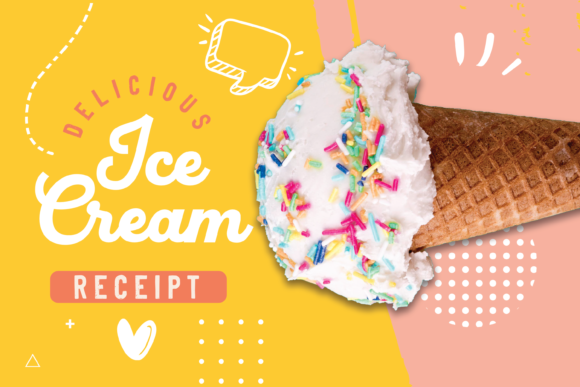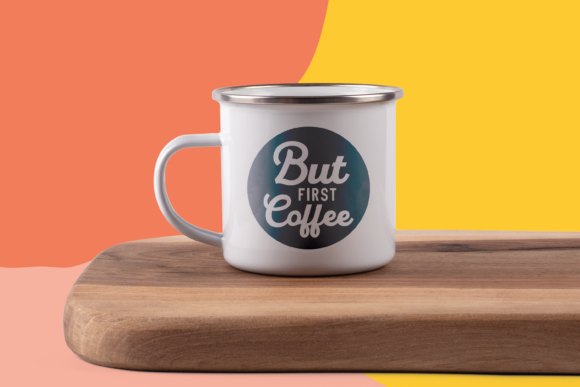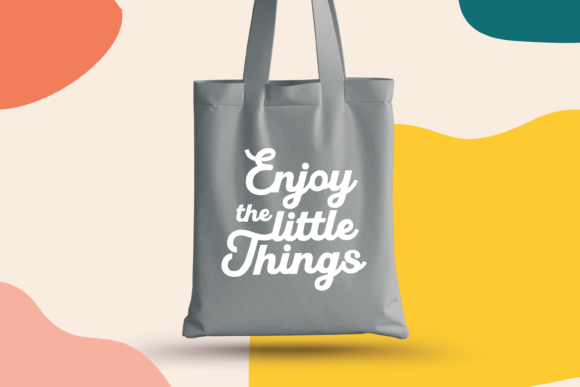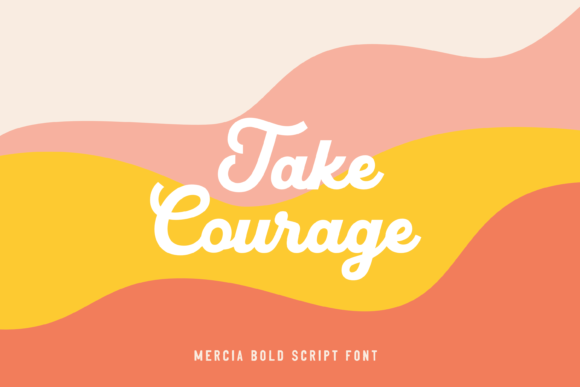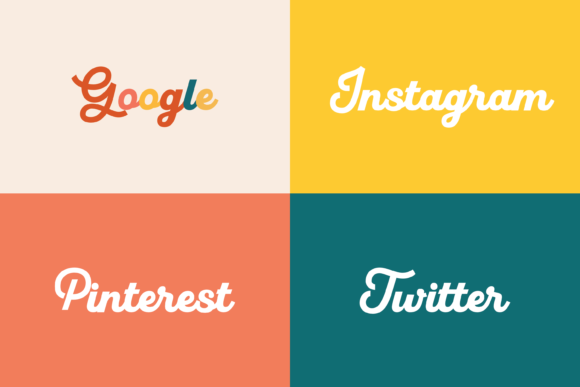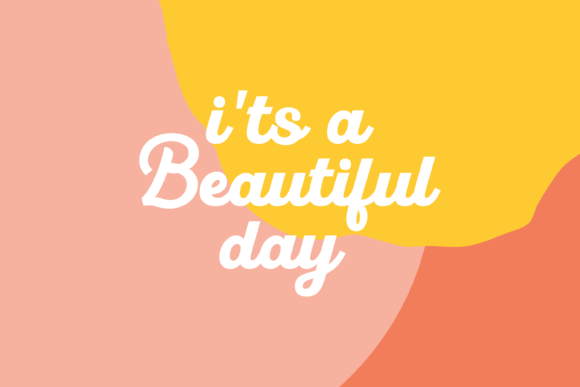
Introduction to Mercia Font
Do you remember the moment when you stumbled upon the perfect font for your creative project? For many designers, that moment is what makes all the difference between a good design and a great one. The Mercia Font is one of those rare gems that can elevate your work to the next level.
This vintage styled, paint brushed script font is not just a pretty face; it’s a valuable resource for designers who want to add a touch of elegance and sophistication to their designs. With its beautiful and balanced character, Mercia Font is perfect for packaging products, invitation cards, flyers, mockups, event posters, and anything else that requires high-quality vibes.
Key Features of Mercia Font
- High-quality design resource with a unique, elegant aesthetic
- Perfect for creative projects that require a touch of sophistication, such as wedding invitations, greeting cards, and magazine layouts
- Features a transparent background, allowing for easy layering and customization
- Includes a wide range of characters, including uppercase and lowercase letters, numbers, and punctuation marks
- Designed with a high resolution of 300 DPI, ensuring crisp and clear text display
- Ideal for use in both digital and print projects, including websites, social media graphics, and business cards
Honest Review: Mercia Font
As a designer, I’m always on the lookout for high-quality fonts to enhance my creative projects. I recently stumbled upon the Mercia Font, and I’m excited to share my honest review with you.
What works well: ✨ The Mercia Font is incredibly versatile and suitable for a wide range of design applications. Its elegant and sophisticated design makes it perfect for use in logos, branding materials, and even digital interfaces. I also appreciate that it comes in a free download format, making it easily accessible to designers of all levels.
- Suitable for logos, branding materials, and digital interfaces
However, there are a few limitations to consider: ⚠️ The font’s transparent background feature can be a bit tricky to work with, especially when using it in combination with complex design elements. Additionally, the font’s character set is limited, which may not be suitable for designers who require a wide range of language support.
Overall, I’m impressed with the Mercia Font’s quality and versatility. While it may have a few limitations, it’s definitely a valuable resource for designers working on high-end creative projects.
Mercia Font
Tips for Getting the Most Out of Mercia Font
To get the most out of the Mercia Font, be sure to use it in conjunction with a high-quality image or background. The font’s transparent background makes it easy to layer over other design elements. Additionally, be sure to experiment with different font sizes and styles to achieve the desired look for your creative project.
The Mercia Font is a versatile design resource that can be used in a variety of creative projects, including: